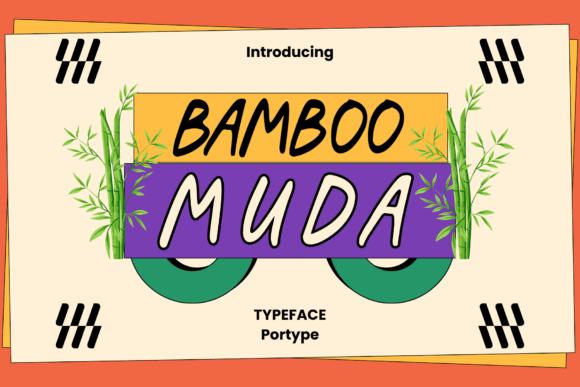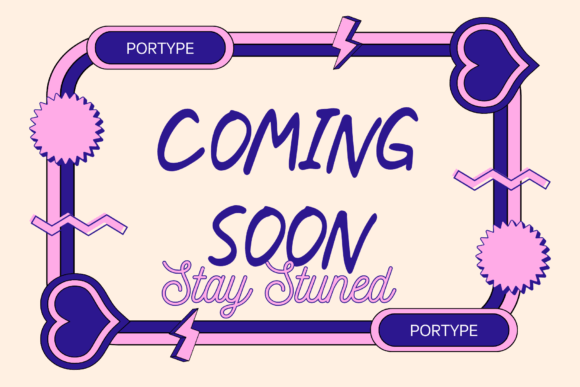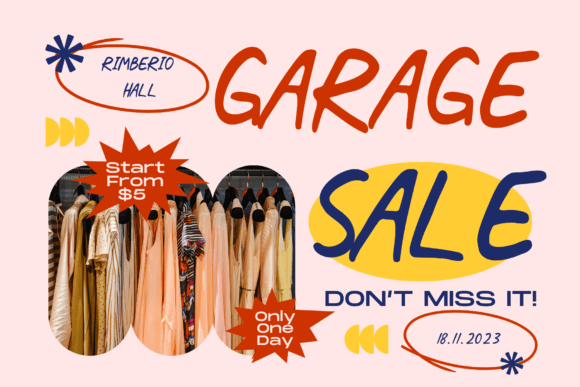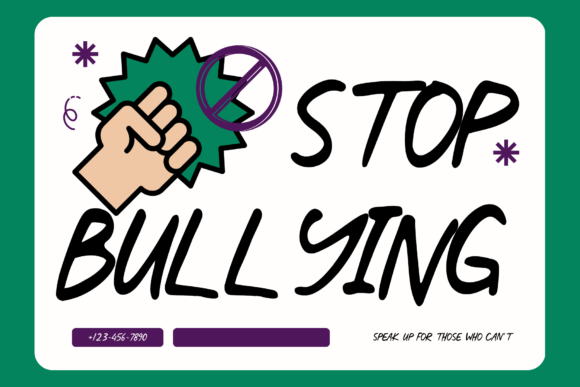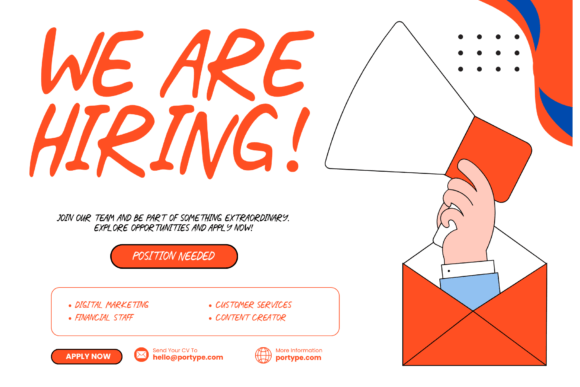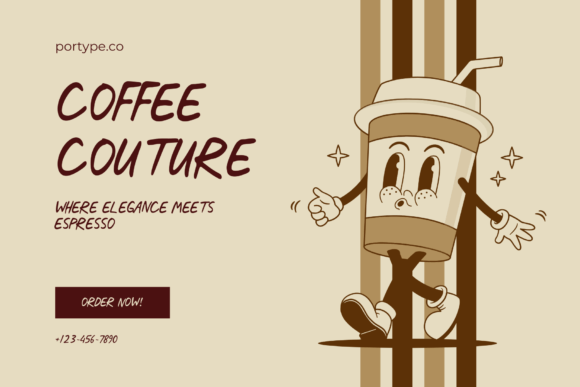
Bamboo Muda Font: A Handwritten Typeface for Unique Design and Branding Needs
In the world of typography, fonts play a crucial role in conveying the tone and personality of a brand. For designers and crafters looking for a unique and authentic touch, Bamboo Muda Font is an excellent choice. This handwritten typeface is designed to bring a natural and friendly feel to every letter, making it perfect for logos, invitations, product packaging, social media, and digital content.
Inspired by Nature: The Story Behind Bamboo Muda
Bamboo Muda Font draws inspiration from the flexible yet sturdy form of young bamboo. The font’s creator aimed to capture the essence of this natural material, which is known for its sustainability and versatility. The result is a typeface that exudes an organic and authentic feel, making it ideal for brands that want to convey a sense of earthiness and approachability.
Characteristics of Bamboo Muda Font
Bamboo Muda Font boasts smooth yet bold strokes that give it a distinctive look. The font’s handwritten nature makes it perfect for designs that require a personal touch. Its unique characteristics include:
• Smooth and bold strokes for a natural look
• Handwritten style for a personal touch
• Inspired by the flexible yet sturdy form of young bamboo
• Organic and authentic feel
Bamboo Muda Font is a versatile typeface that can be used in various design applications. Its unique style makes it perfect for:
• Logos: Create a memorable brand identity with Bamboo Muda Font
• Invitations: Add a personal touch to your invitations and stationery
• Product packaging: Stand out on store shelves with eye-catching packaging designs
• Social media: Elevate your social media presence with engaging and authentic content
• Digital content: Bring a natural and friendly feel to your blog posts, articles, and website content
Why Choose Bamboo Muda Font?
In a world where typography plays a crucial role in branding, Bamboo Muda Font offers a unique and refreshing alternative. Here are some reasons why designers and crafters should consider this font:
• Unique and authentic style
• Handwritten nature for a personal touch
• Inspired by nature for an organic feel
• Versatile and adaptable for various design applications
• Perfect for brands that want to convey a sense of earthiness and approachability
Tips for Using Bamboo Muda Font
To get the most out of Bamboo Muda Font, here are some tips for designers and crafters:
• Pair it with neutral colors to let the font take center stage
• Experiment with different font sizes and styles to add visual interest
• Use it consistently across various design applications for brand cohesion
• Don’t be afraid to add textures and patterns to enhance the natural feel
Bamboo Muda Font is a unique and refreshing handwritten typeface that brings a natural and friendly touch to every letter. Inspired by the flexible yet sturdy form of young bamboo, this font offers an organic and authentic feel that’s perfect for designers and crafters looking for a distinctive look. With its smooth yet bold strokes and versatile nature, Bamboo Muda Font is an excellent choice for logos, invitations, product packaging, social media, and digital content.
Whether you’re a seasoned designer or a crafty DIY enthusiast, Bamboo Muda Font is sure to inspire your creativity and help you stand out in a crowded design landscape.